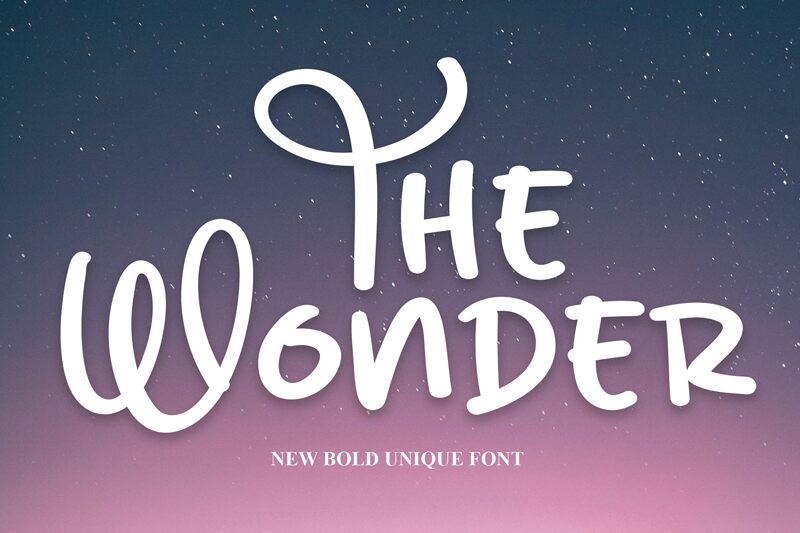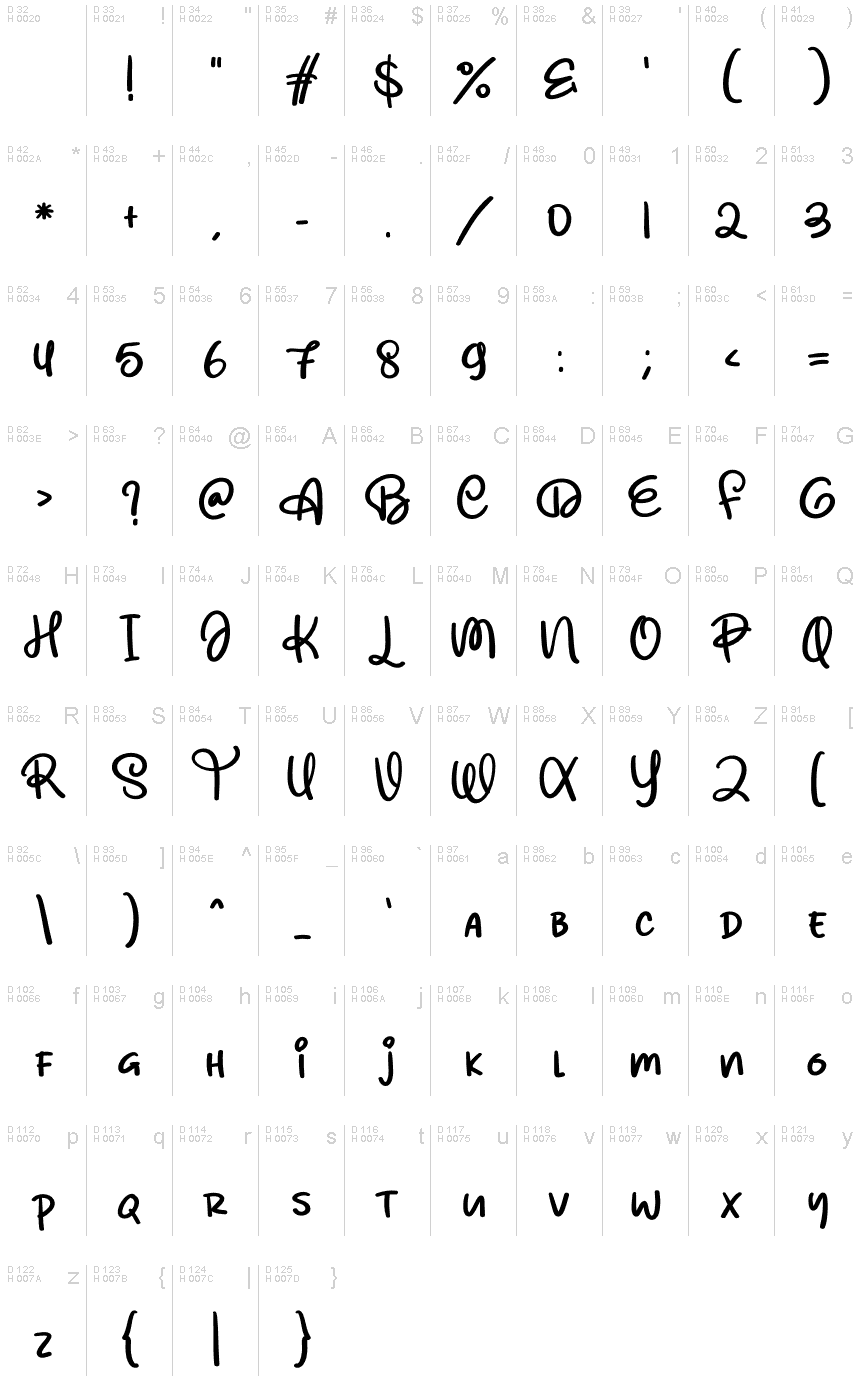
The Wonder
The Wonder, crafted by Scratchones, is a captivating handwritten font that exudes whimsy and charm. With its semi-light weight, it strikes a delicate balance between elegance and playfulness.
Reminiscent of the enchanting Disney style font, The Wonder is perfect for children's books, greeting cards, and invitations. Its graceful curves and artistic flair also lend themselves beautifully to branding projects seeking a touch of magic.
Let this delightful typeface transport your designs into a world of imagination and wonder.
The latest style letters are perfect for wall displays, wedding invitations, social media post logos, advertisements, product packaging, product designs, labels, photography, watermarks, invitations, stationery, and any project that requires taste handwriting.